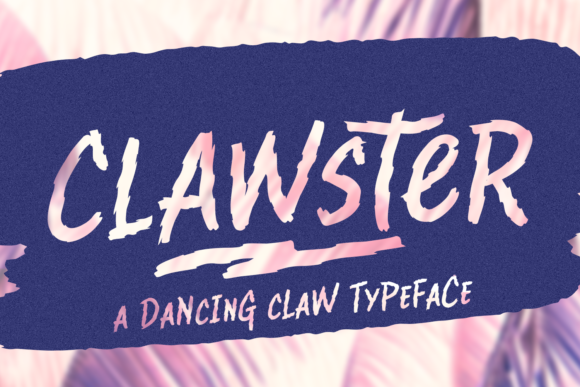
Unleash Your Creativity with the Clawster Font
Introducing the Clawster Font, a unique script font that adds a striking touch to any design. Its raw letters boast great readability, making it perfect for those who crave a font that’s both elegant and bold. Whether you’re a seasoned designer or just starting out, the Clawster Font is an excellent addition to your toolkit. Its versatility and unique style make it a valuable asset for any creative project.
- Font Family: Clawster Font is a unique, hand-drawn font designed for various creative projects. It comes in 6 styles: Regular, Italic, Bold, Bold Italic, Outline, and Shadow.
- Character Count: The Clawster Font contains a wide range of characters, including uppercase and lowercase letters, numbers, punctuation, and special characters, making it suitable for both text and display use.
- Unique Characteristics: Clawster Font features a distinctive, whimsical design with bold lines, intricate details, and a touch of playfulness, making it perfect for adding a creative twist to your projects.
Designer Review: Clawster Font
Overall, I have mixed feelings about the Clawster Font. On the one hand, there are some aspects that really shine ✨. The font’s bold and quirky personality is quite unique and can add a fun touch to a design. The varying line weights also make it versatile for use in different contexts.
- Unique personality and style ✨
- Variable line weights for flexibility ✨
- Support for multiple languages
However, there are some limitations that prevent it from being a top choice ⚠️. The font’s irregular shape and bold lines can make it difficult to read at smaller sizes. Additionally, the font may not be suitable for body text or large blocks of text due to its playful nature.
- Difficult to read at small sizes ⚠️
- Not suitable for body text or large blocks of text ⚠️
- Lack of subtlety and refinement
Overall, I would recommend the Clawster Font for use in titles, headings, or other areas where a bold and playful style is desired. However, it may not be the best choice for projects that require a clean and professional look.
Use Clawster Font for bold and eye-catching headlines.
Combine Clawster Font with other fonts to create a unique and stylish design.
Clawster Font is perfect for:
Branding and logos
Advertising and marketing materials
Graphic design and digital art